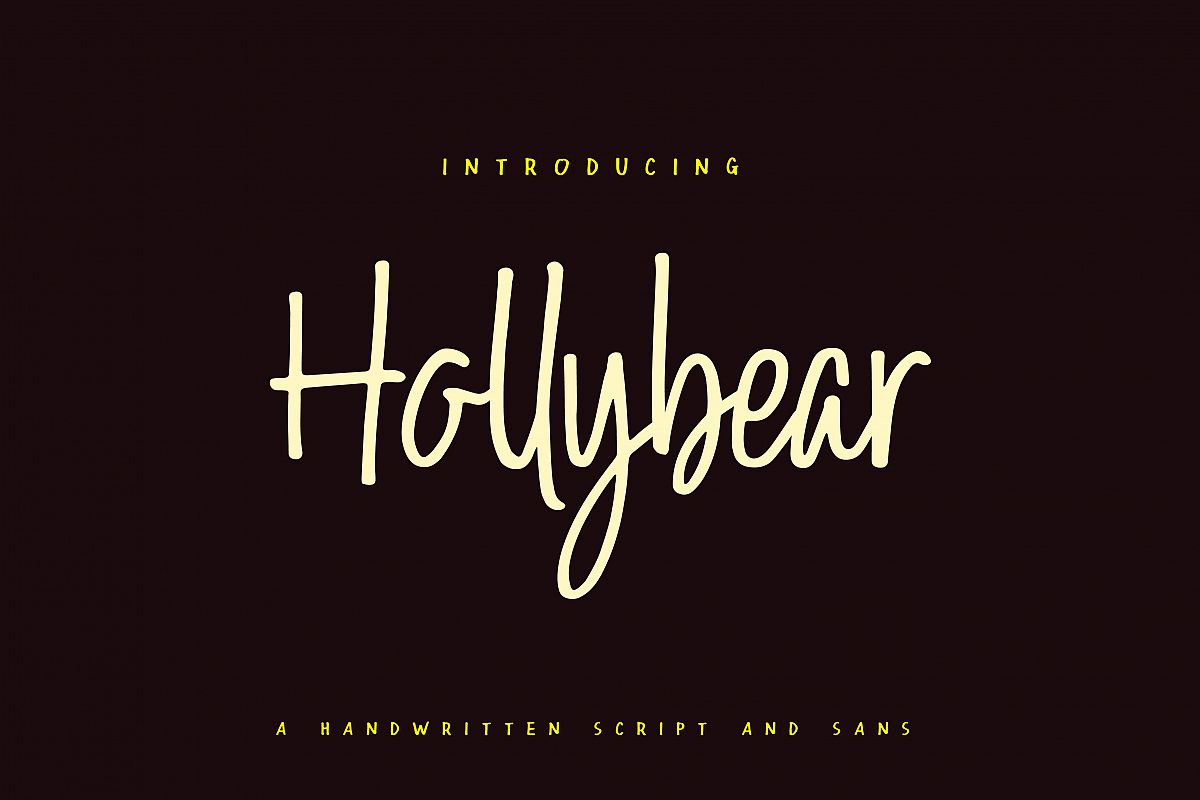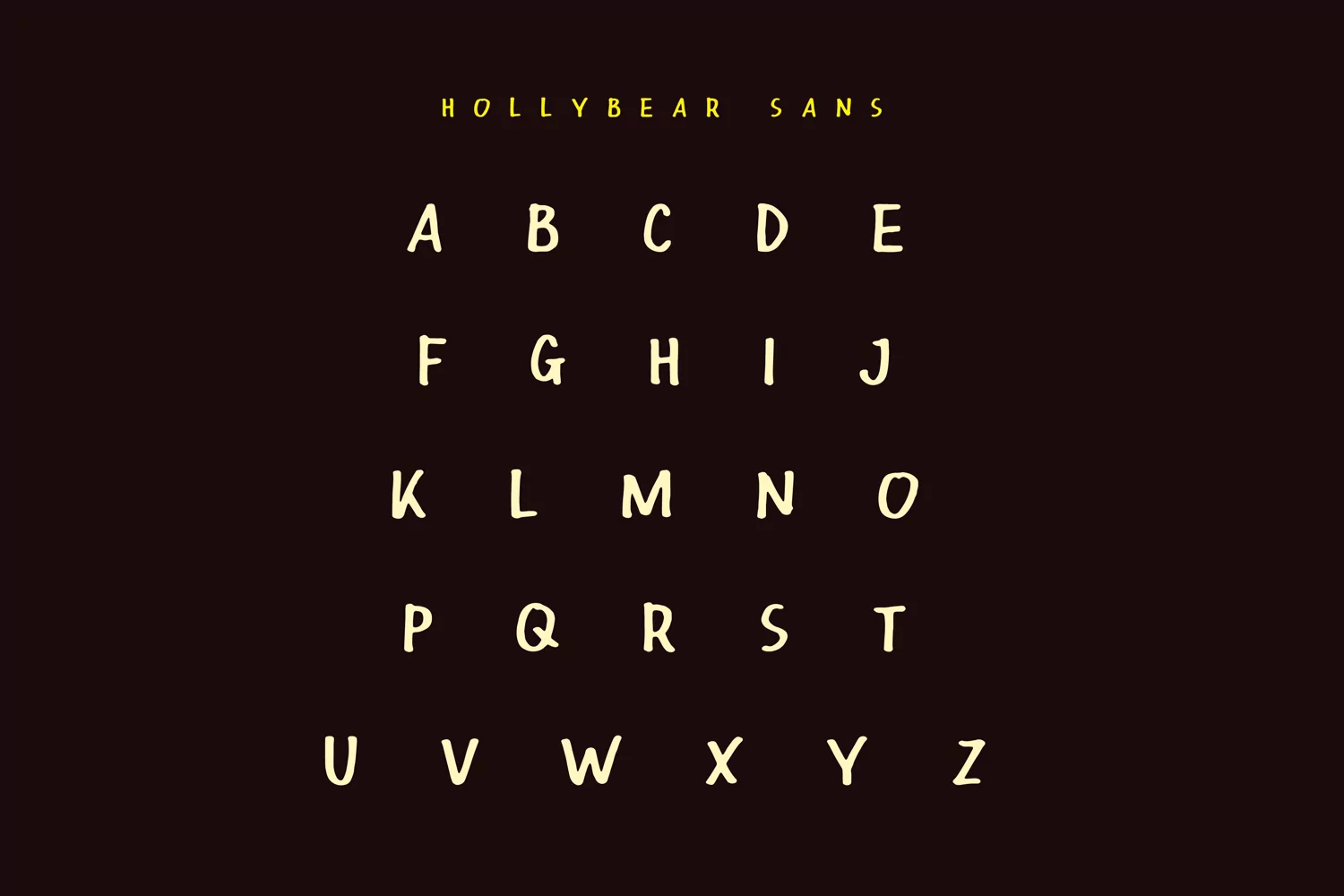
Hollybear is a handwritten script font duo that is perfect for signature, label, logotype, quote, headers, logo packaging, personal branding, and etc.
Hollybear coming with font duo:
Hollybear have uppercase, lowercase, numerals, punctuation and multilingual characters.